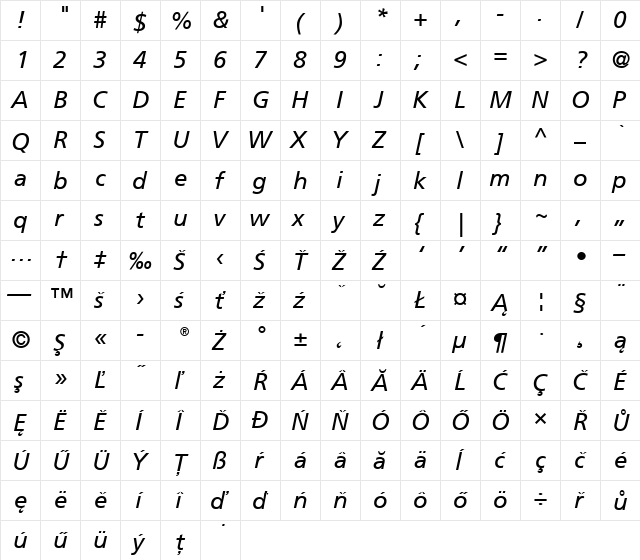
Frutiger CE 55 Roman Italic Font Preview
Frutiger CE 55 Roman Italic
Frutiger CE 55 Roman Italic Font Details
Design Context for Frutiger CE 55 Roman Typeface
Frutiger CE 55 Roman is a composed and adaptable typeface that performs quietly and consistently across a wide range of design contexts. The dynamic lean of this cut emphasises speed and emphasis in any layout.
Pro Tip: Use Frutiger CE 55 Roman for emphasis, pull quotes, and subheadings where its slanted energy can add rhythm to the layout.